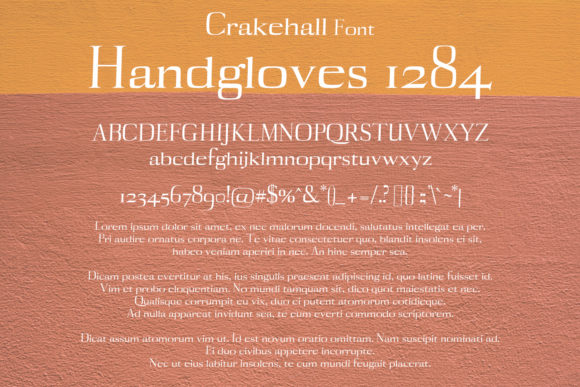
Crakehall Font: The Minimalist Serif Choice for Elegant Designs
In the world of typography, fonts play a crucial role in conveying the message and aesthetic of a design. With numerous options available, finding the perfect font that suits your project’s needs can be overwhelming. However, if you’re looking for a minimal yet elegant serif font that can elevate your designs, look no further than Crakehall Font. In this article, we’ll explore the features and benefits of Crakehall Font, and why it’s becoming a favorite among designers and crafters.
What is Crakehall Font?
Crakehall Font is a beautifully crafted serif font that boasts a minimalist design. Its neat and simple style makes it an excellent choice for a wide range of projects, from elegant branding and editorials to packaging and digital designs. The font’s subtle lines and curves create a sophisticated look that’s both timeless and versatile.
Key Features of Crakehall Font
- Minimalist Design: Crakehall Font’s clean and simple design makes it perfect for designs that require a subtle yet elegant touch.
- Serif Elegance: The font’s serif features add a touch of sophistication and refinement, making it suitable for high-end branding and editorials.
- Versatility: Crakehall Font’s neutral design allows it to be paired with a variety of styles, making it an excellent choice for designers who want a font that can adapt to different projects.
- Readability: The font’s clear and legible design ensures that your text is easy to read, making it perfect for body text and captions.
Benefits of Using Crakehall Font
So, why should you choose Crakehall Font for your next project? Here are some benefits of using this elegant serif font:
- Elegant Aesthetic: Crakehall Font adds a touch of sophistication and elegance to your designs, making it perfect for high-end branding and editorials.
- Flexibility: The font’s versatility allows it to be used in a variety of projects, from digital designs to print materials.
- Easy to Pair: Crakehall Font’s neutral design makes it easy to pair with other fonts, allowing you to create unique and harmonious typography combinations.
- Time-Saving: With Crakehall Font, you can save time searching for the perfect font, as its versatility and elegance make it suitable for a wide range of projects.
Who Can Benefit from Crakehall Font?
Crakehall Font is an excellent choice for a variety of designers and crafters, including:
- Graphic Designers: Crakehall Font is perfect for branding, logos, and marketing materials that require an elegant and sophisticated touch.
- Editors and Publishers: The font’s readability and serif elegance make it an excellent choice for editorials, books, and magazines.
- Digital Designers: Crakehall Font’s clean design and versatility make it suitable for digital designs, such as websites, apps, and social media graphics.
- Crafters and Artists: The font’s elegant aesthetic and flexibility make it perfect for crafters and artists who want to add a touch of sophistication to their projects.
In conclusion, Crakehall Font is a beautifully crafted serif font that offers a unique combination of minimalism and elegance. Its versatility, readability, and ease of use make it an excellent choice for a wide range of designers and crafters. Whether you’re working on a branding project, editorial, or digital design, Crakehall Font has the potential to become your go-to font. So, why not give it a try and experience the elegance and sophistication it can bring to your designs?